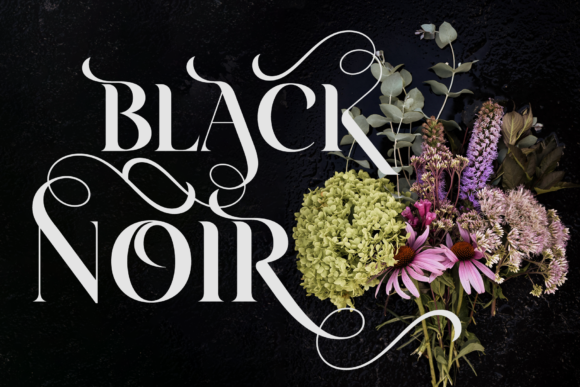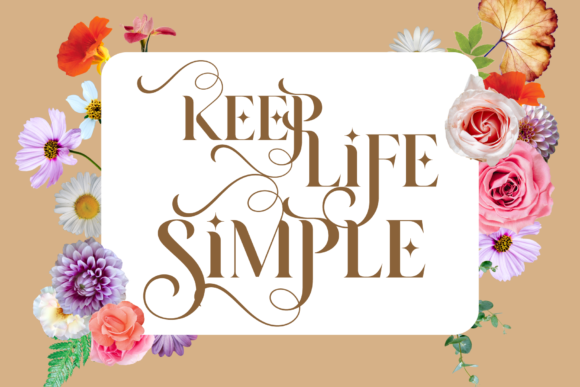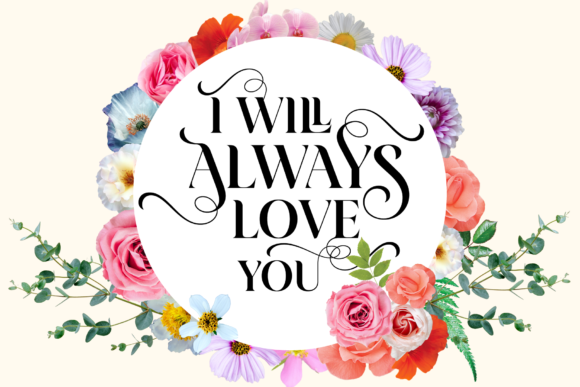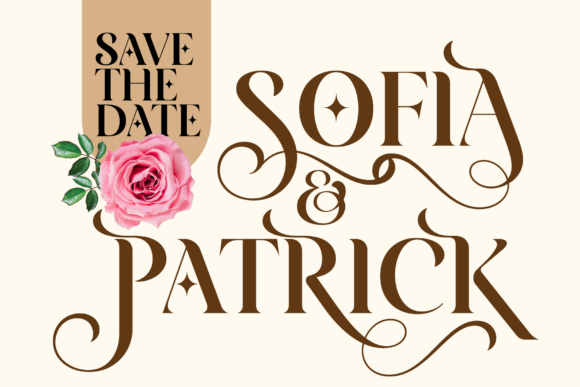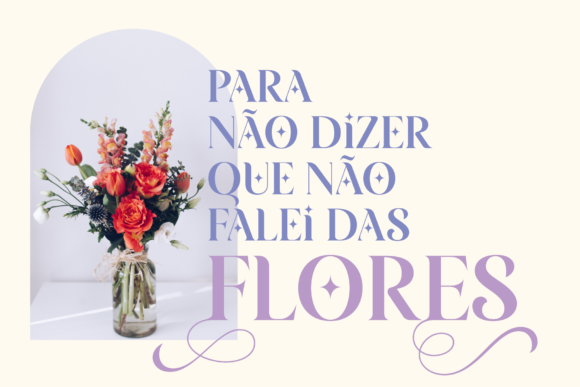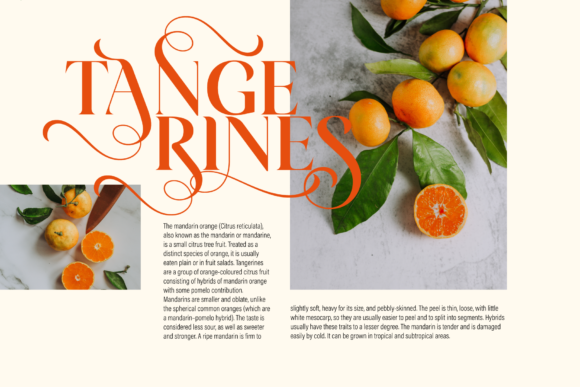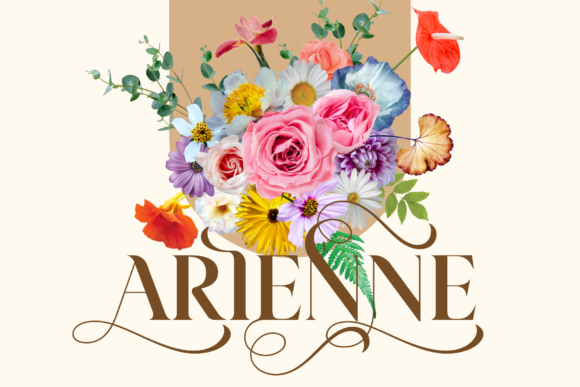
The Font that Stole My Heart: A Deep Dive into Arienne Font
I still remember the design project that led me to discover Arienne Font. I was working on a branding project for a luxury skincare brand, and I was struggling to find the perfect font that exuded elegance and sophistication. The client wanted a font that was both timeless and eye-catching, and I was on a mission to find it. After hours of scouring through font libraries, I stumbled upon Arienne Font, and it was love at first sight! ✨
An Honest Review of Arienne Font
So, what makes Arienne Font so special? Let’s dive into the good stuff! 😊
• ✨ Timeless and elegant design: Arienne Font has a classic serif design that exudes sophistication and luxury.
• ✅ PUA encoded for easy access: With PUA encoding, you can easily access all the glyphs and swashes, making it a breeze to create stunning designs.
• ✅ Perfect for logos, branding, and quotes: The font’s design makes it ideal for creating eye-catching logos, branding materials, and quotes.
Now, no font is perfect, and Arienne Font has a few quirks: 🤔
• ⚠️ Limited use in body text: While Arienne Font is stunning in headlines and titles, it may not be the best choice for body text due to its serif design.
• ⚠️ Some characters may require manual kerning: As with any font, you may need to adjust the kerning of certain characters to get the perfect look.
The Backstory of Arienne Font
Arienne Font was designed with the intention of creating a timeless and elegant serif font that would evoke a sense of luxury and sophistication. The designer aimed to create a font that would be perfect for branding, logos, and quotes, while also being easy to read and versatile. The result is a font that is both classic and modern, making it a great addition to any design project.
What is Arienne Font best used for? Arienne Font is perfect for creating eye-catching logos, branding materials, and quotes.
Is Arienne Font PUA encoded? Yes, Arienne Font is PUA encoded, making it easy to access all the glyphs and swashes.
Can I use Arienne Font for body text? While Arienne Font is stunning in headlines and titles, it may not be the best choice for body text due to its serif design.